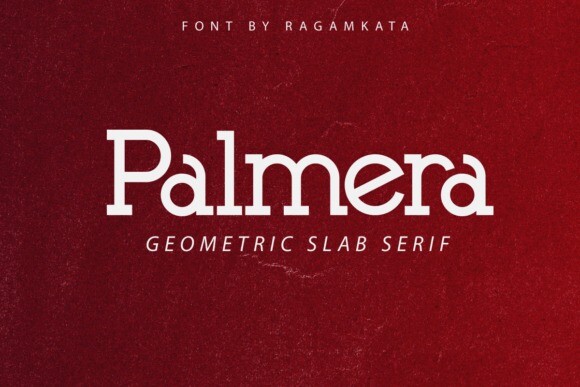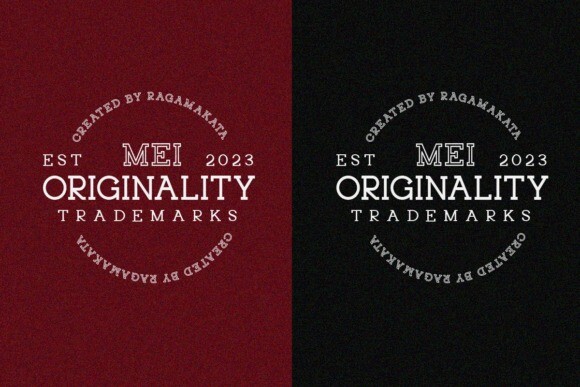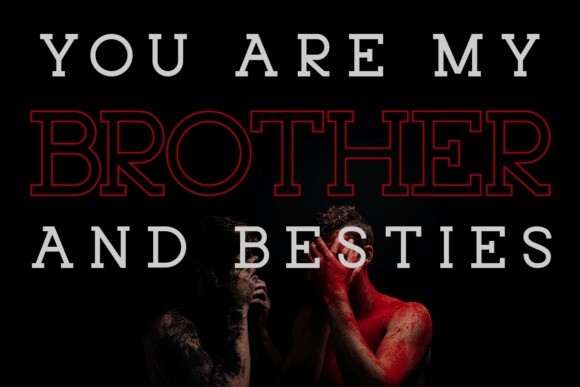
Palmera Typeface
Palmera Font is a geometric slab serif font. Simple and sharp-looking, this typeface will truly inspire you to create spectacular designs that will impress everyone. Palmera font is perfect for your up coming projects. Such as logo branding, editorial design, fashion, adventure apparel, stationery design, sport design, blog design, modern advertising design, card invitation, badge, art quote, home decor, book/cover title, special events and any more.